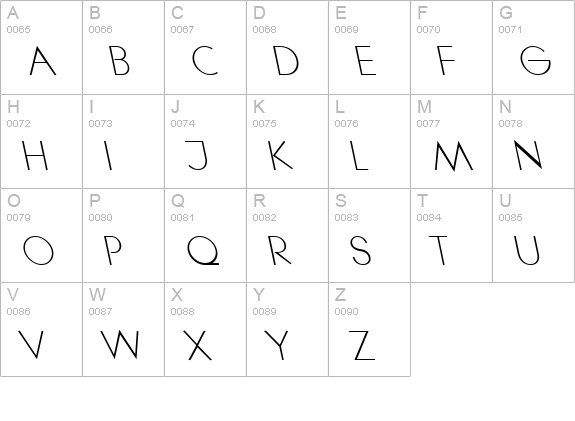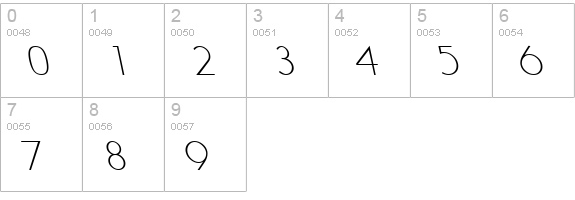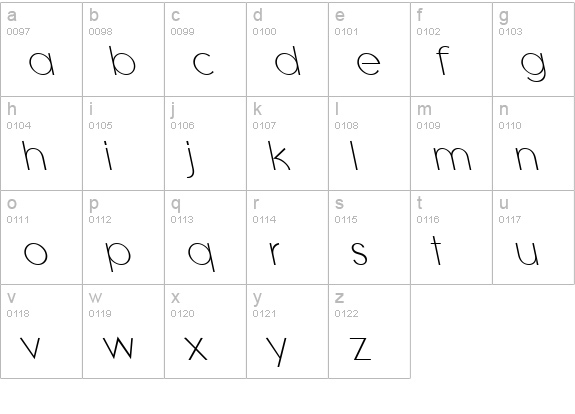
LitheLeftyLight Regular Font Details
LitheLeftyLight Regular is the standard, neutral variant in the LitheLeftyLight typeface family \xE2\x80\x94 well suited to general body text, paragraphs, and standard typographic work.
LitheLeftyLight Regular is a sleek and modern font that exudes elegance and sophistication. With its clean lines and graceful curves, this typeface is perfect for a wide range of design projects, from branding to editorial layouts. The gentle slant of the letters adds a touch of dynamism to the overall look, making it a versatile choice for both headings and body text. What sets LitheLeftyLight Regular apart is its effortless blend of traditional and contemporary design elements. The balanced letterforms and generous x-height ensure excellent legibility in both print and digital formats, while the subtle details give it a unique character that sets it apart from other fonts in its class. Best of all, LitheLeftyLight Regular is available for free download at FontsMarket.com. Whether you're a seasoned designer looking for a fresh addition to your font library or a novice in need of a stylish typeface for your latest project, LitheLeftyLight Regular is sure to impress with its combination of beauty and functionality. Don't miss out on this opportunity to elevate your designs with this stunning and versatile font.